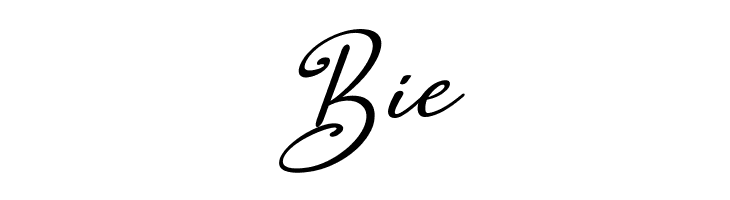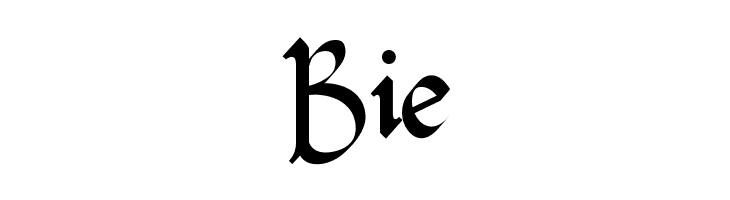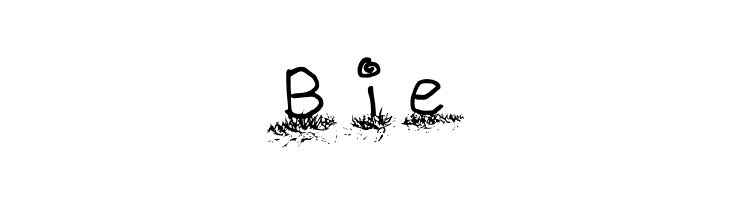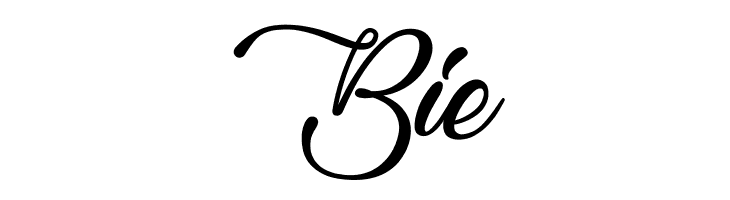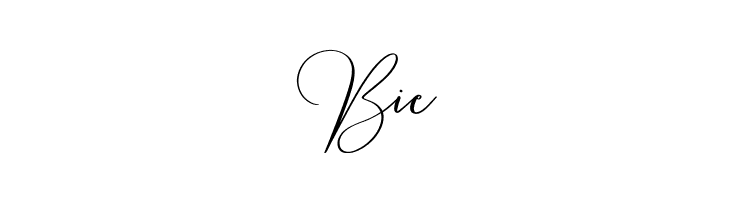
A bold, playful handwritten font with a casual and dynamic style.
An elegant script font with graceful, flowing lines and high contrast.
A graceful and elegant script font with flowing, cursive strokes.
A playful, hand-drawn font with a whimsical and quirky style.
A bold, medieval-inspired font with sharp, angular lines and decorative flourishes.
An elegant and flowing script font with intricate swirls and loops.
An elegant script font with flowing cursive letters and intricate flourishes.
An elegant, flowing script font with ornate uppercase and readable lowercase letters.
An elegant script font with intricate swirls and flowing strokes.